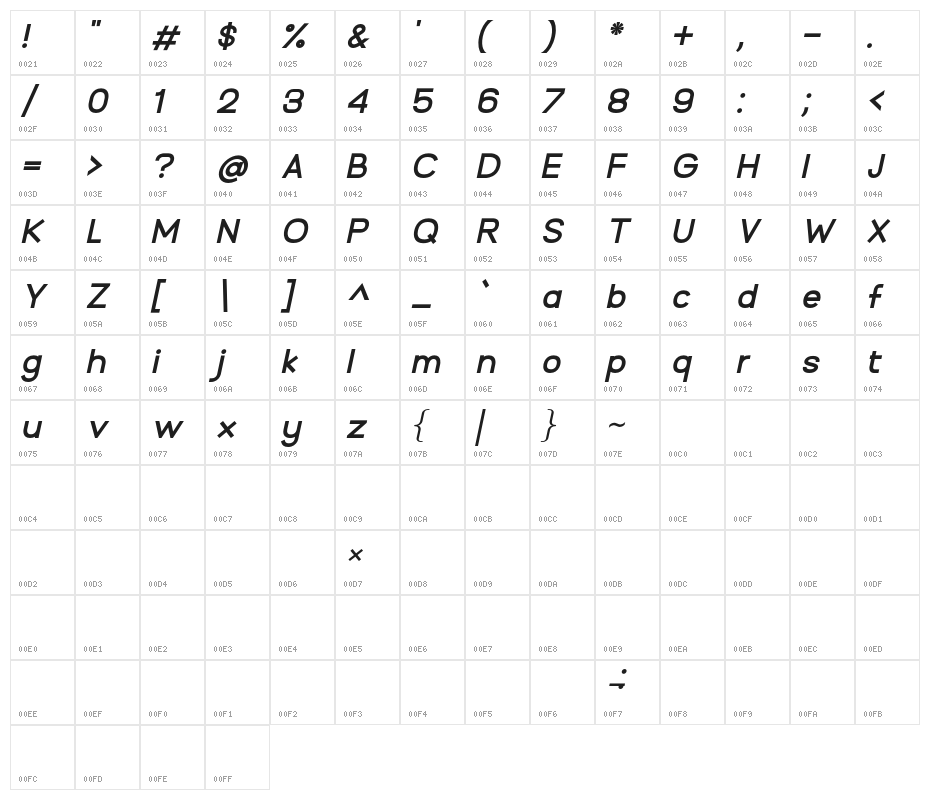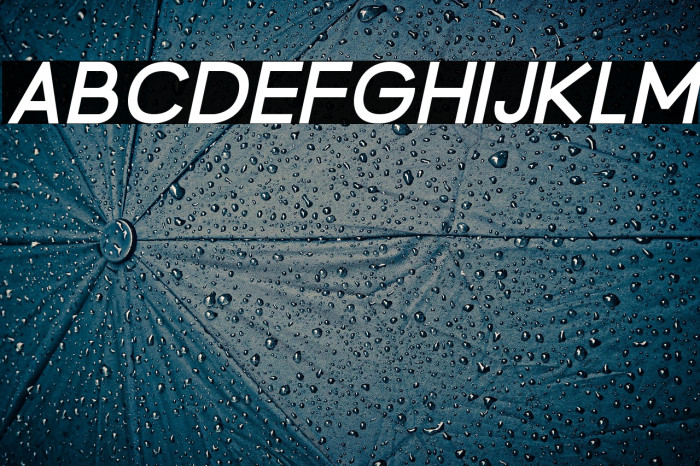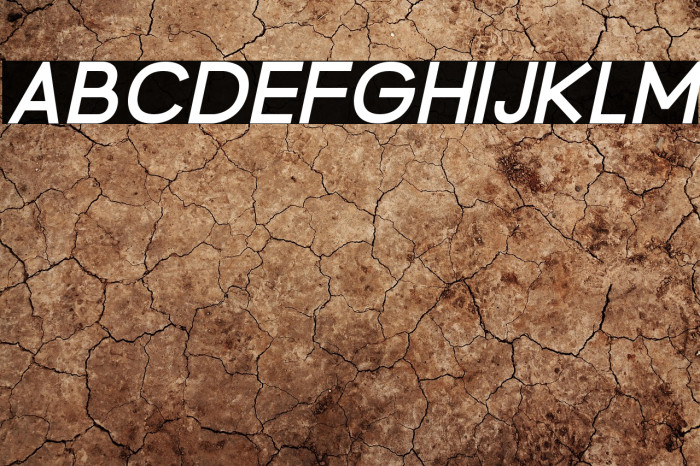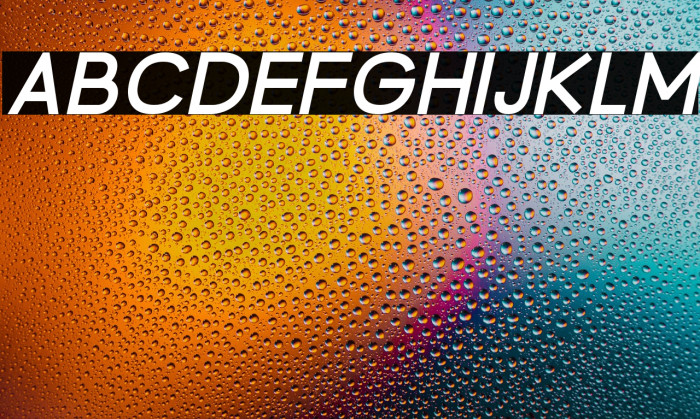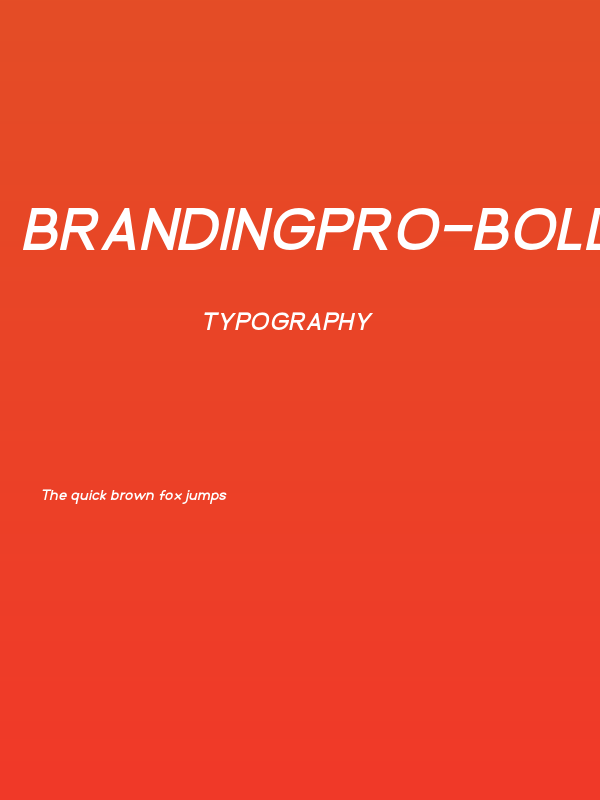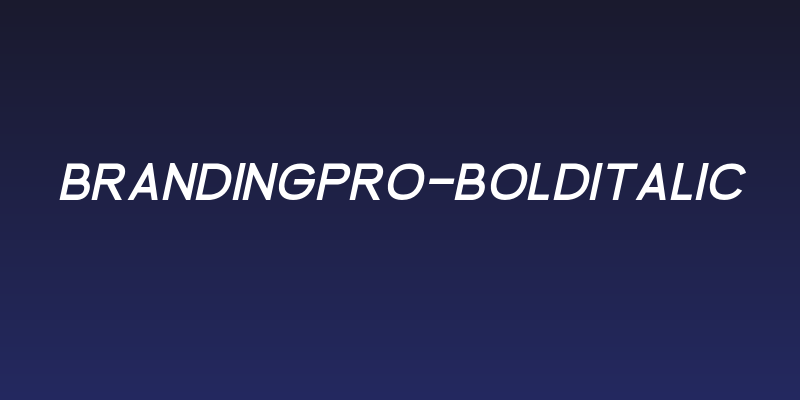
BrandingPro-BoldItalic Font
This font exhibits a sleek and modern aesthetic with a bold and italicized style. The characters are slightly slanted, giving a dynamic and forward-moving appearance. The strokes are consistent in thickness, providing a uniform look across all characters. The uppercase letters are tall and commanding, while the lowercase letters maintain a balanced proportion. Numbers are clear and easy to read, making them suitable for various applications. The special characters are designed to match the overall style, ensuring cohesion throughout the font. This font is versatile, suitable for both digital and print media.
Use CaseHeadlines, Logos, Branding
Proposed ProjectsIdeal for branding, advertising, headlines, and digital media where a modern and bold statement is needed.